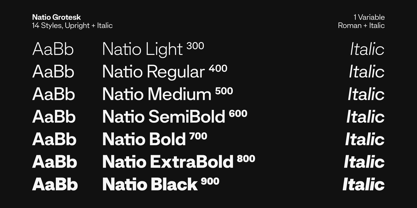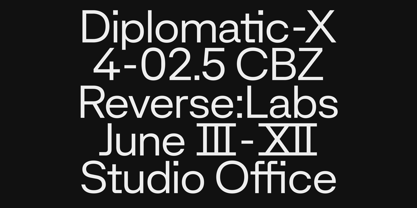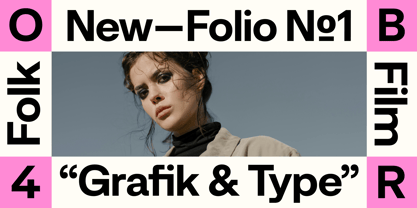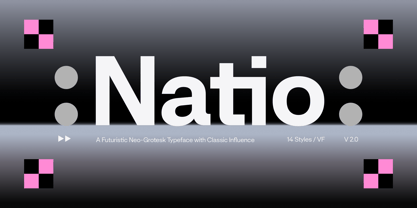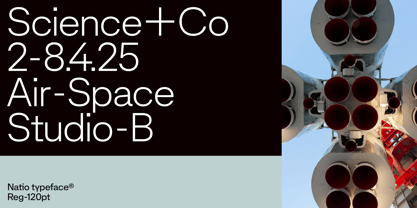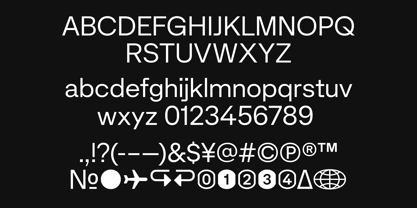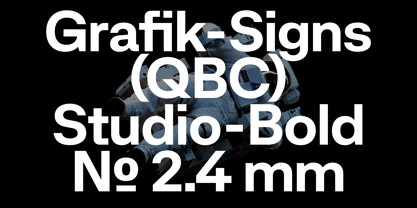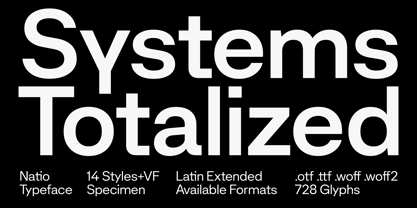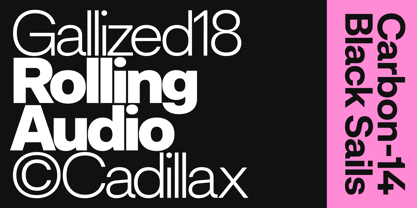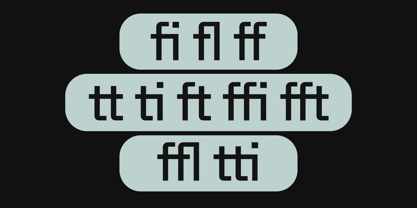
Natio
von Degarism Studio
Die Schriftfamilie Natio wurde von Deni Anggara entworfen und von Degarism Studio veröffentlicht. Natio enthält 16 Stile und Familienpaketoptionen.
Natio is a versatile Neo Grotesque typeface that draws inspiration from the aesthetic trends of the 20th century. Designed with a focus on neutrality, industrial design elements, modern sensibilities, and geometric forms, Natio is ideal for a wide range of design applications.
One of its distinguishing features is its set of alternate characters, including a double-storey "g" and light variants of "J, f, t, j" with straight terminals. These alternate characters add versatility and uniqueness to the typeface, allowing designers to create distinctive typographic compositions.
In addition to alternate characters, Natio includes ligatures for smoother and more harmonious letter combinations. Moreover, it offers discretionary ligatures as an alternative option, providing flexibility to meet diverse visual requirements.
With a total of seven styles, each accompanied by its italic counterpart, Natio provides a comprehensive typographic solution for various design projects. Furthermore, its support for variable font technology enables seamless transitions between different weights and styles, ensuring consistency and flexibility in typography design.
Designer: Deni Anggara
Herausgeber: Degarism Studio
Foundry: Degarism Studio